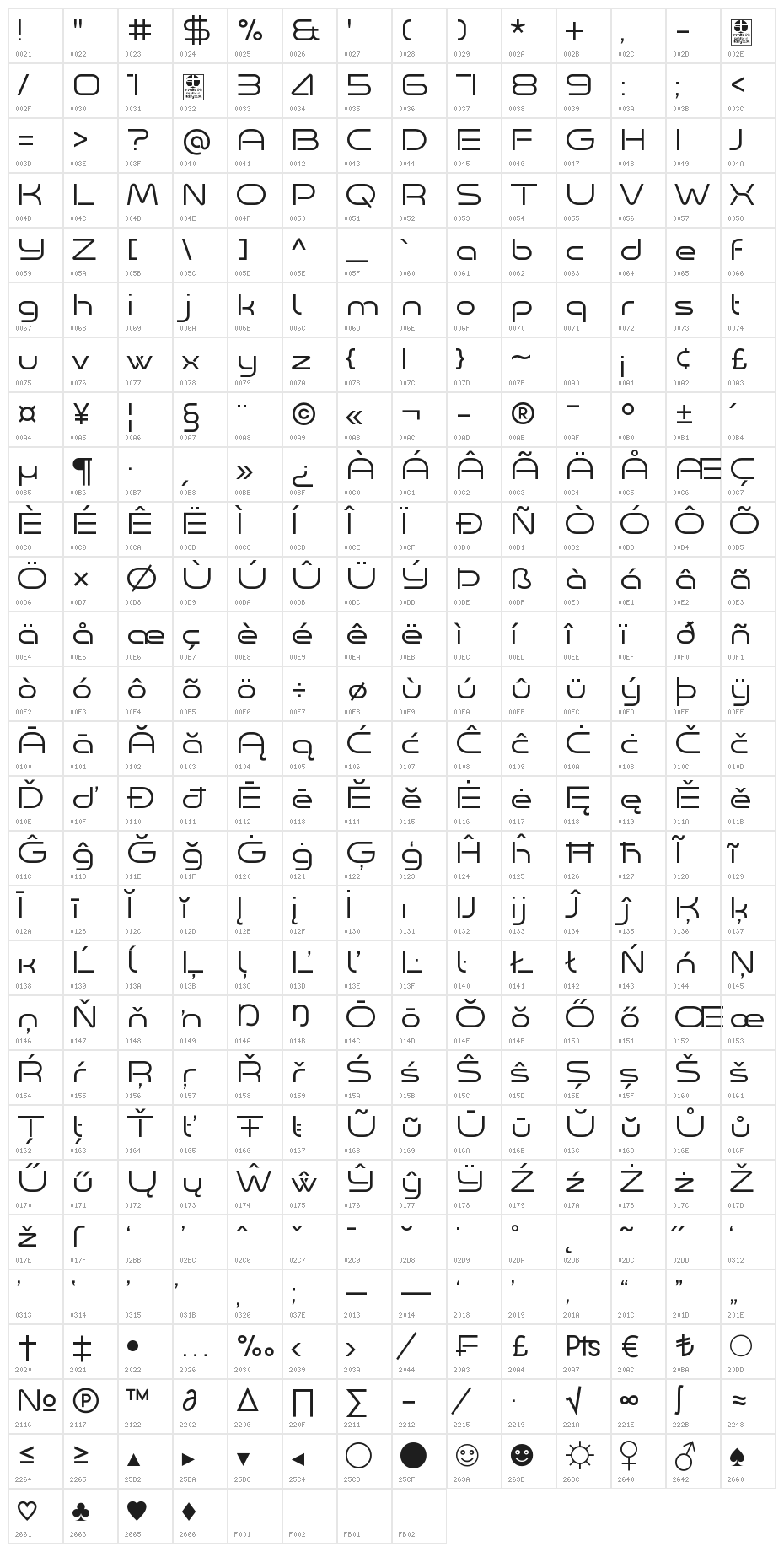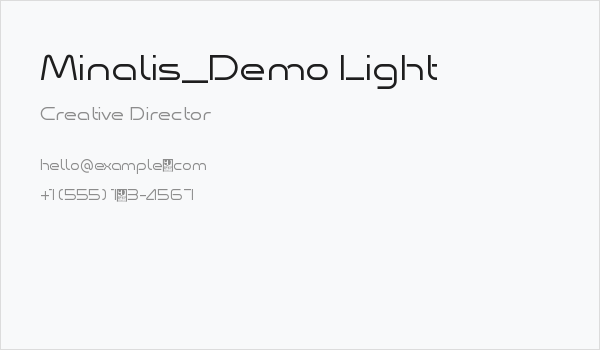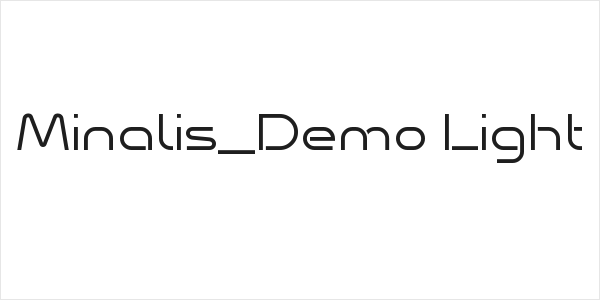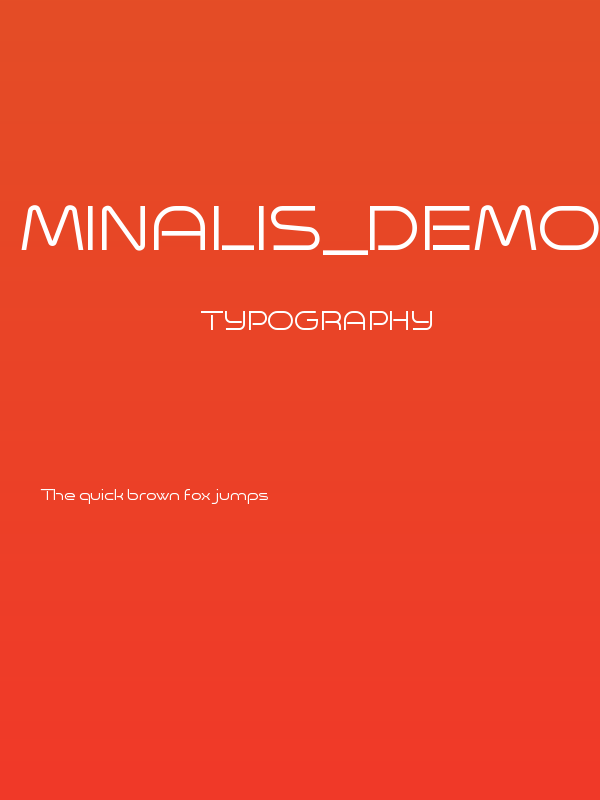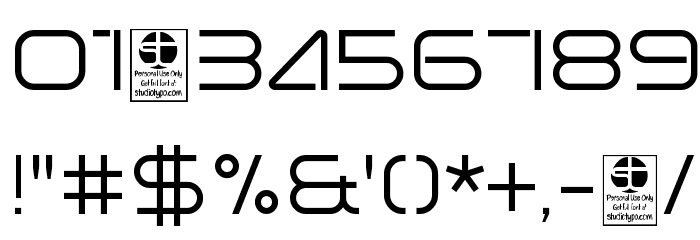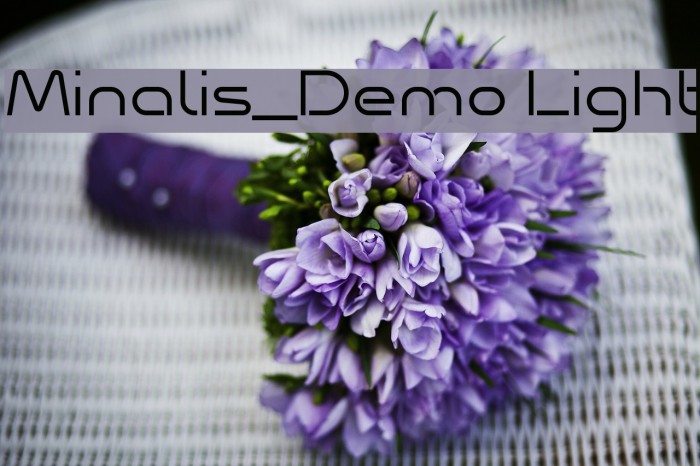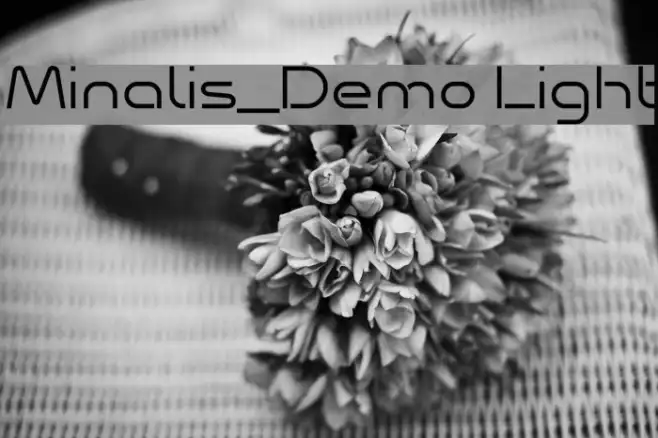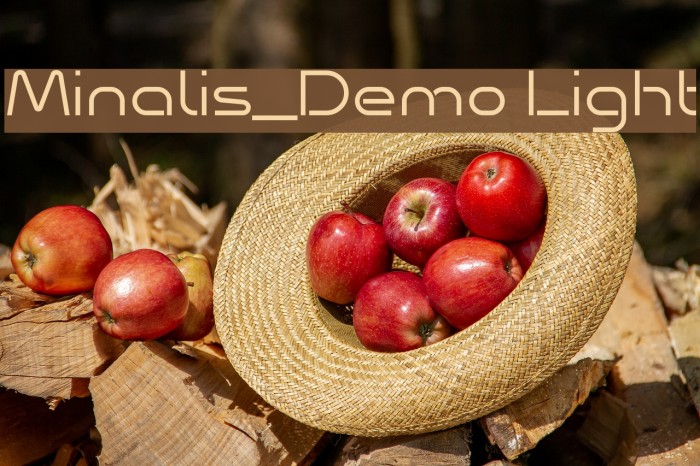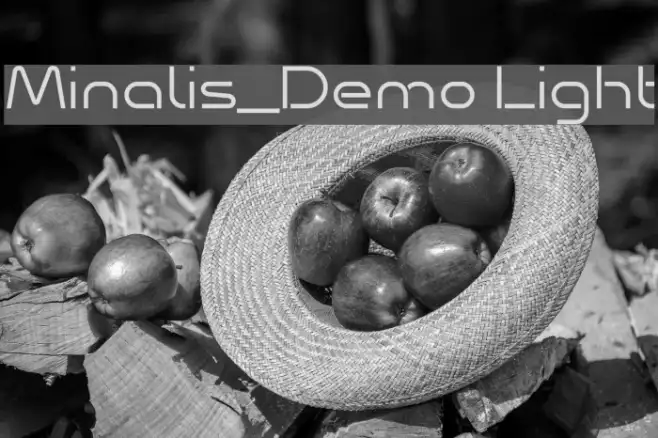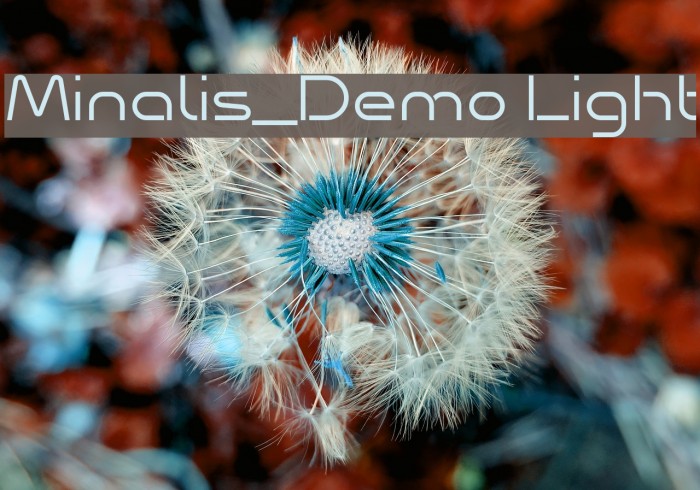
Minalis_Demo Light Font
Minalis_Demo Light Description
This font features a sleek, modern design with clean lines and a geometric structure. The characters are evenly spaced, providing a balanced and harmonious appearance. The uppercase letters exhibit a uniform height, while the lowercase letters maintain a consistent baseline, enhancing readability. The numerals are distinct and easy to distinguish, making them suitable for various applications. The special characters are well-integrated, complementing the overall aesthetic. This font's minimalist style is ideal for contemporary design projects.
| Proposed Projects | Ideal for branding, digital interfaces, and modern print designs. |